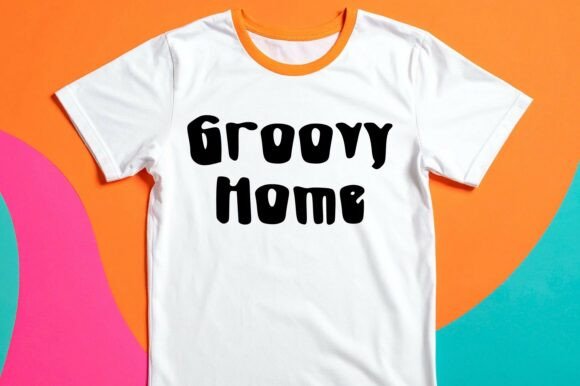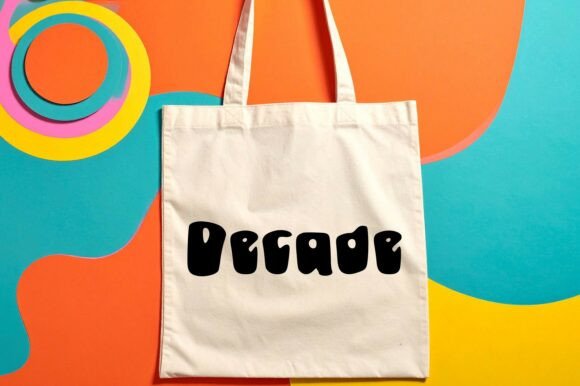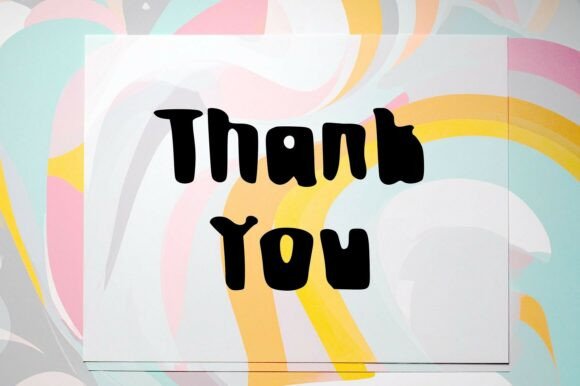
Experience the Funkadelic Era with Cocwit Font: A Thrilling Dive into Vibrant Nostalgia
Are you ready to take a thrilling dive into a vibrant nostalgia wave? Look no further than Cocwit, a daring display font that transports you straight back to a funkadelic era! Cocwit exudes an enticing blend of whimsical charm and psychedelic magnetism, manifested in its exceptionally curvaceous and condensed typography. This font is crafted to highlight audaciousness and draw an irresistibly joyful mood, making it perfect for designers and crafters looking to add a touch of nostalgia to their projects.
The Unique Charm of Cocwit
So, what sets Cocwit apart from other fonts? Its distinctive charm shines through its exaggerated, fluid-like bubble letters that, despite their restrained dimensions, still make a strong impact, transforming any text into a compelling declaration. Cocwit surpasses being just a font—it is a statement accessory that skilfully bridges the gap between old-school allure and modern relevance. Whether you’re working on a branding project, a packaging design, or a digital artwork, Cocwit is sure to make a lasting impression.
Exceptional Readability and Legibility
One of the standout features of Cocwit is its exceptional readability, even at larger scales. The unique outline of this typeface assures legibility, ensuring that your message is conveyed clearly and effectively. This makes Cocwit an excellent choice for headlines, titles, and short phrases, where you want to grab attention and make a statement. Additionally, the font’s carefully crafted letterforms ensure that it remains legible, even when used in smaller sizes or at a distance.
Bridging Old-School Allure and Modern Relevance
Cocwit is more than just a nostalgic font; it’s a versatile design tool that can be used in a variety of contexts. Its bold, curvaceous lines and psychedelic undertones evoke a sense of retro fun, while its clean and condensed typography ensures that it remains relevant and modern. This makes Cocwit an excellent choice for designers and crafters looking to add a touch of vintage flair to their projects, without sacrificing legibility or style.
Cocwit is a font that is sure to delight designers and crafters alike. Its unique blend of whimsy and sophistication makes it perfect for a wide range of projects, from branding and packaging to digital art and craft projects. Whether you’re looking to add a touch of nostalgia to your designs or simply want to create something bold and eye-catching, Cocwit is an excellent choice.
Key Features of Cocwit Font
• Exceptionally curvaceous and condensed typography: Cocwit’s unique letterforms are designed to grab attention and evoke a sense of nostalgia.
• Exaggerated, fluid-like bubble letters: The font’s distinctive charm shines through its bold and curvaceous lines.
• Exceptional readability and legibility: Cocwit’s carefully crafted letterforms ensure that it remains clear and legible, even at larger scales.
• Perfect for headlines, titles, and short phrases: Cocwit is designed to make a statement and grab attention.
• Versatile and modern: The font’s clean and condensed typography ensures that it remains relevant and modern.
In conclusion, Cocwit is a daring display font that is sure to transport you back to a funkadelic era. Its unique blend of whimsical charm and psychedelic magnetism makes it perfect for designers and crafters looking to add a touch of nostalgia to their projects. With its exceptional readability, legibility, and versatility, Cocwit is an excellent choice for a wide range of projects. So why not take the plunge and experience the thrill of Cocwit for yourself?